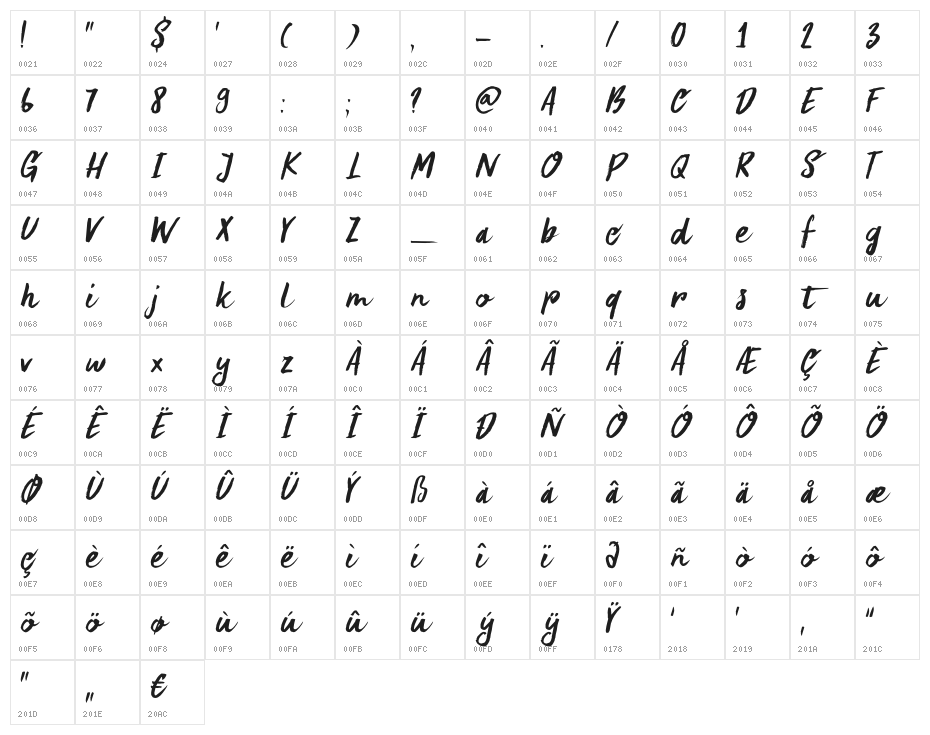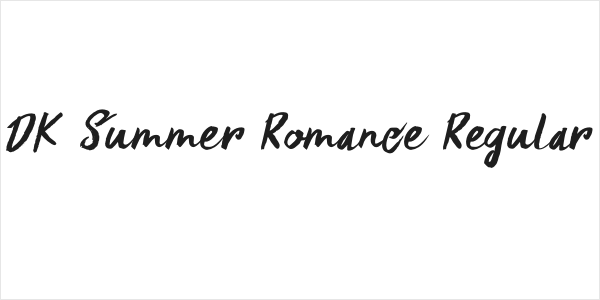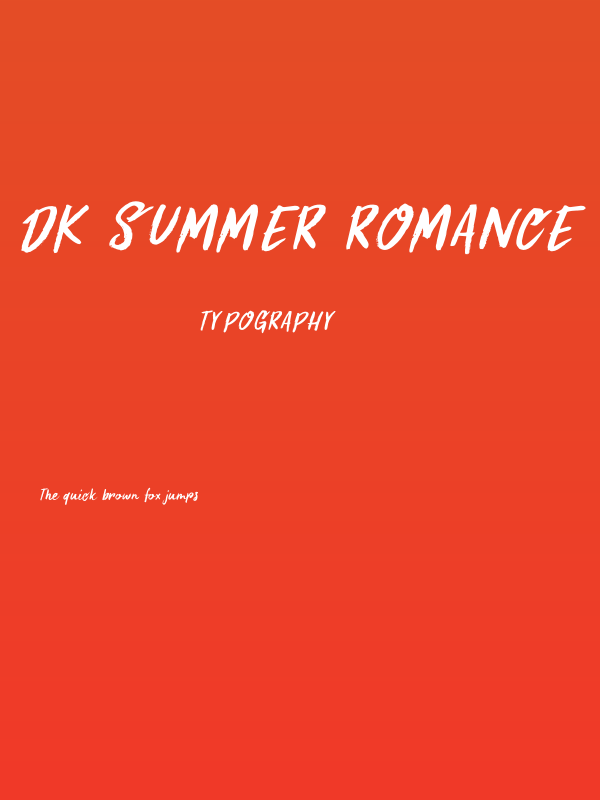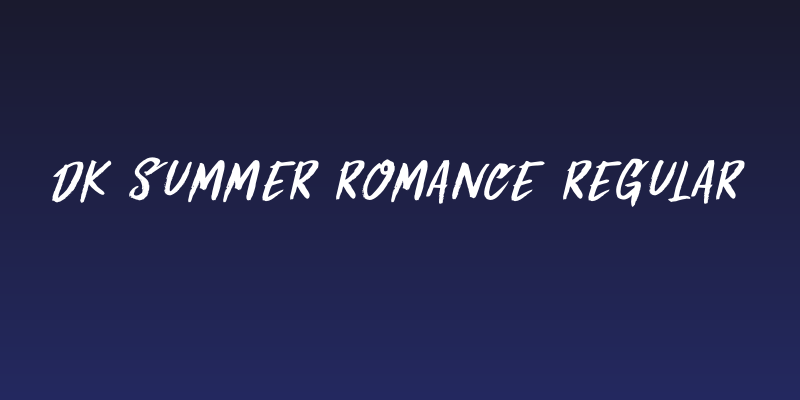
DK Summer Romance Regular Font
DK Summer Romance Regular Description
This font exudes a lively and expressive character, featuring bold, brush-like strokes that convey a sense of movement and energy. The uppercase letters are robust and dynamic, while the lowercase letters maintain a fluid and cursive style, adding a touch of elegance. The numerals are consistent with the overall boldness, ensuring readability. Special characters are creatively integrated, maintaining the font's artistic flair. This font is perfect for projects that require a personal and artistic touch, such as invitations, posters, or branding materials.
| Proposed Projects | Ideal for invitations, posters, branding, and artistic projects. |